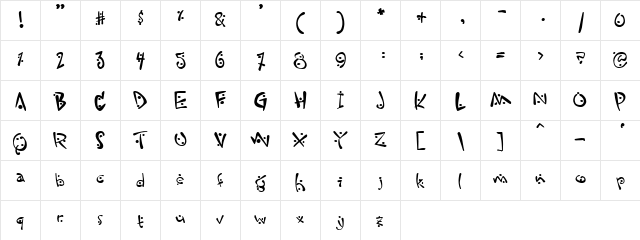
Complete Zitcream Regular glyph index. Displaying only characters natively supported by Zitcream Regular font.
Zitcream is a composed and adaptable typeface that performs quietly and consistently across a wide range of design contexts.